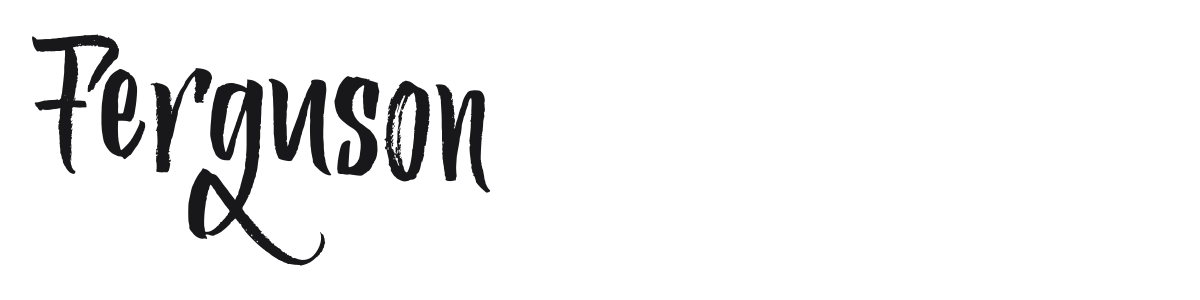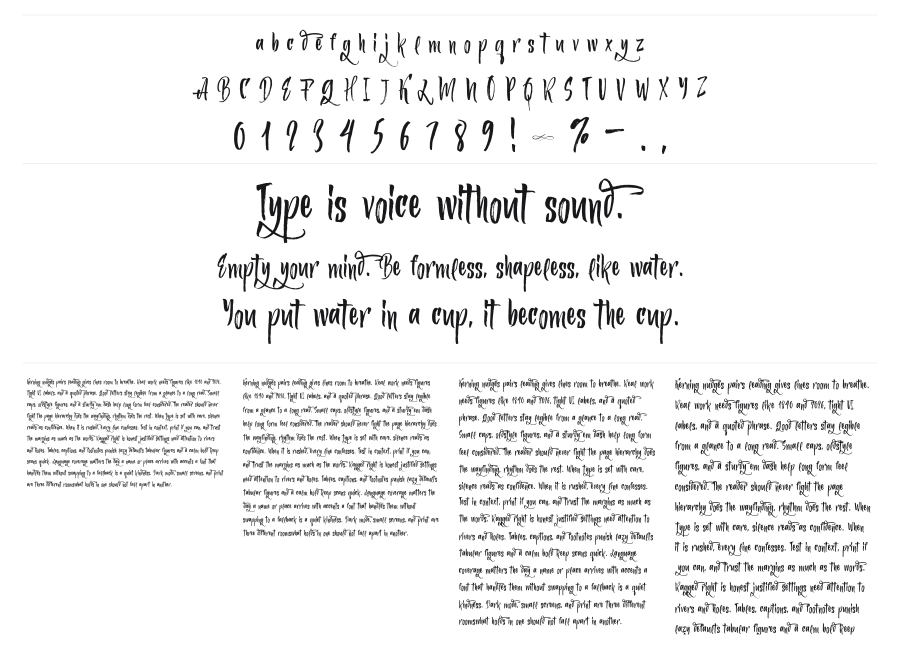
Ferguson
Ferguson is a textured brush script with an irregular baseline and bold ink-drag strokes that feel genuinely hand-lettered. The contrast between thick stems and wispy hairlines gives it energy without feeling over-polished. It suits branding, apparel, packaging, and anywhere a handcrafted touch matters.